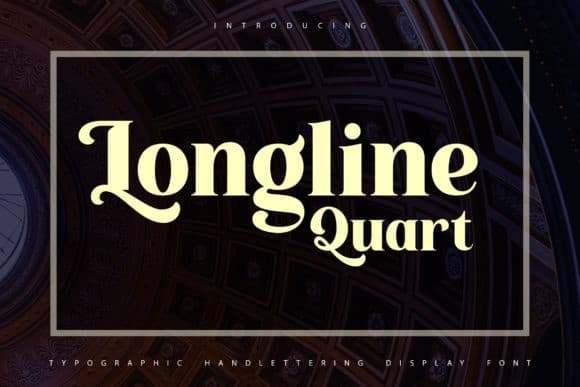
Longline Quartz Serif Font
Longline Quartz Serif Font is a modern artistic serif typography. It’s a charming and friendly display font. You can use it for editorial, branding & more because it is so versatile. By using the ligature function of your favorite design software, you can easily change its style from classic to artistic within a few seconds.